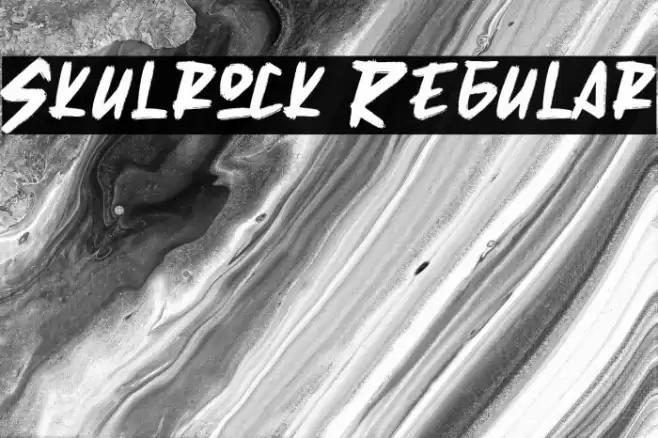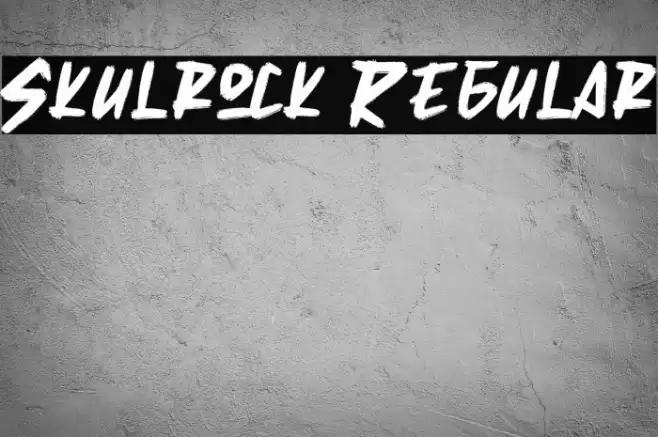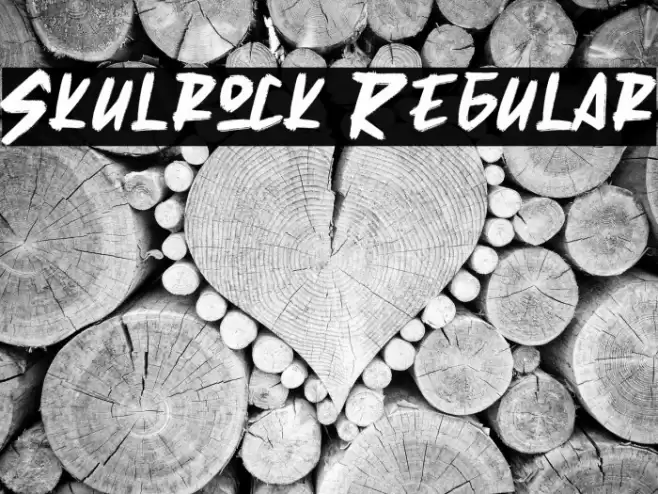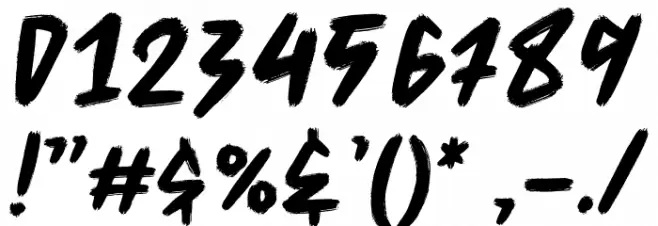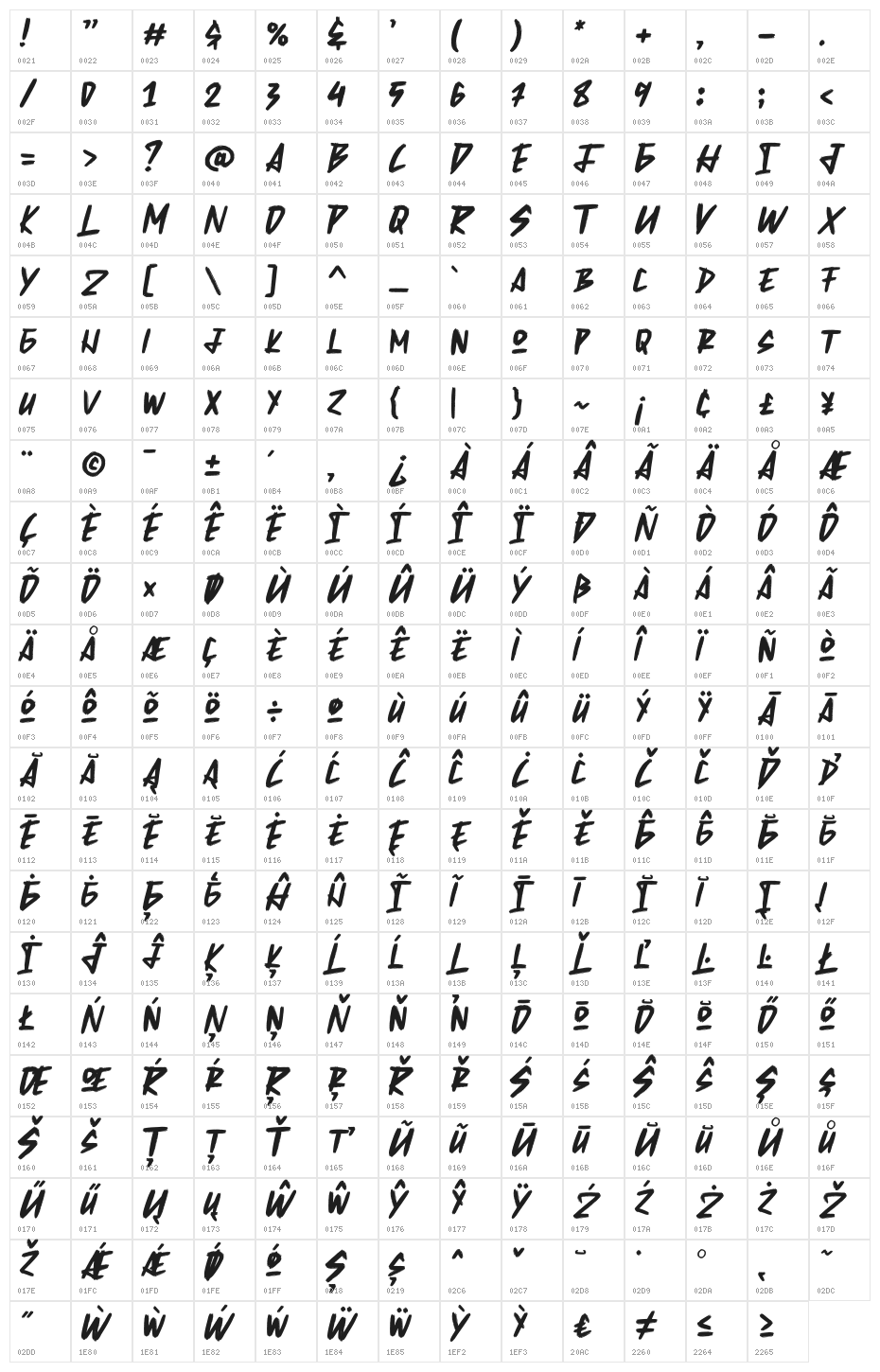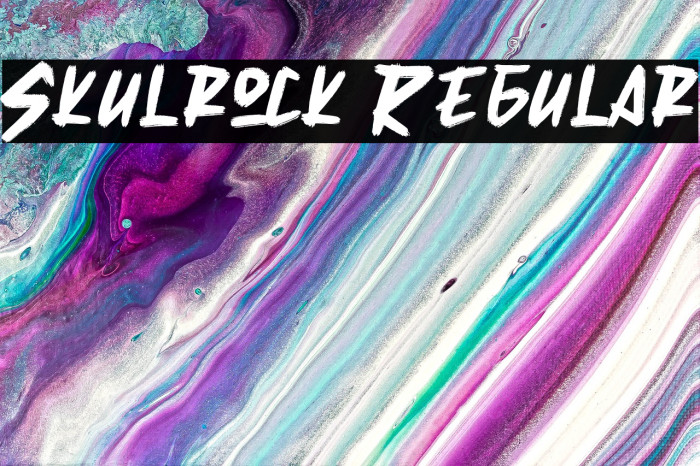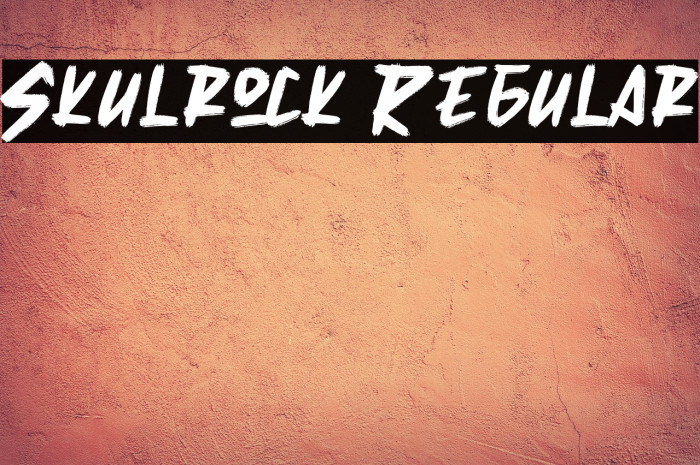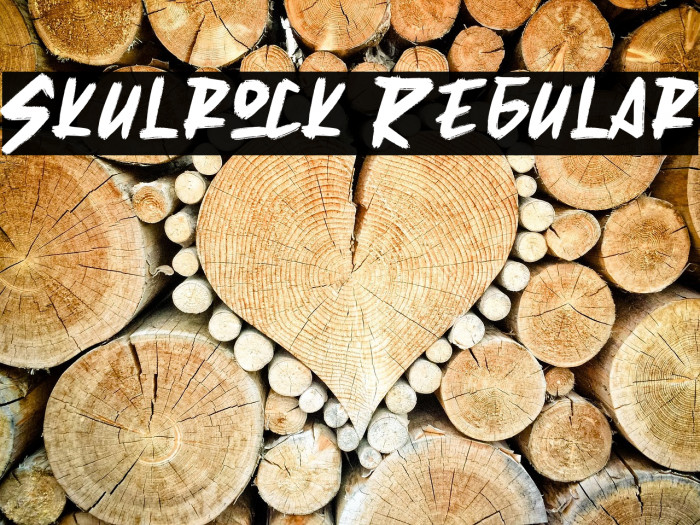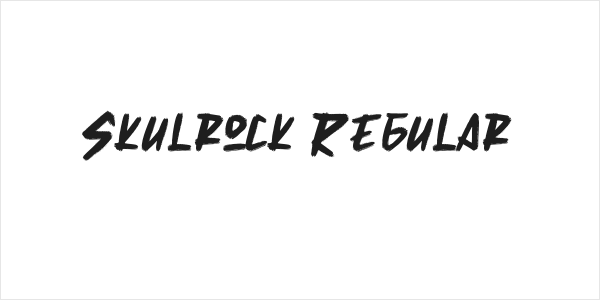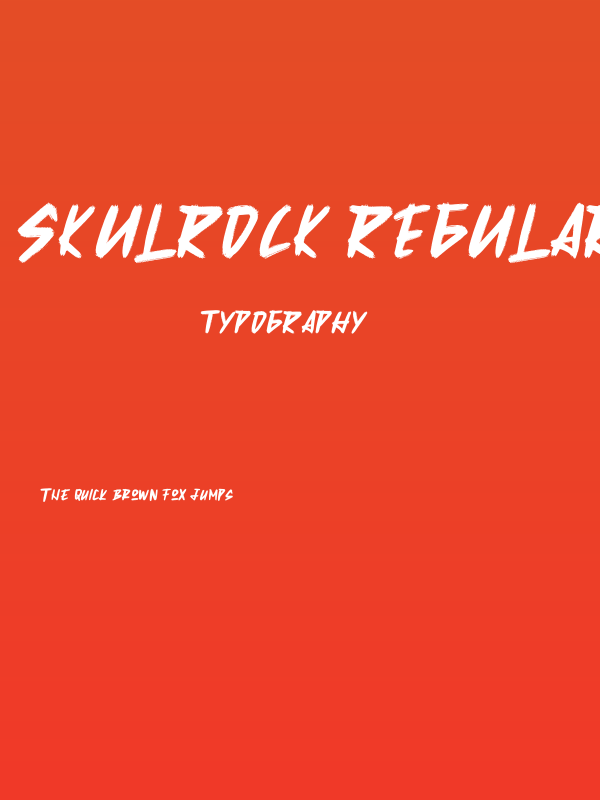
Skulrock Regular Font
Skulrock Regular Description
This font features a bold, energetic style with a brush-like appearance, giving it a dynamic and edgy feel. The characters are slightly slanted, adding to the sense of movement and urgency. The strokes are thick and uneven, which contributes to a raw, hand-drawn aesthetic. This font is highly legible despite its artistic flair, making it suitable for impactful designs. The uppercase and lowercase letters maintain a consistent style, while the numbers and special characters complement the overall look with their bold and expressive forms.
A bold, brush-style font with a dynamic and edgy appearance from Regular fonts.
- Proposed Projects: Ideal for posters, album covers, streetwear branding, and any project requiring a bold, artistic touch.